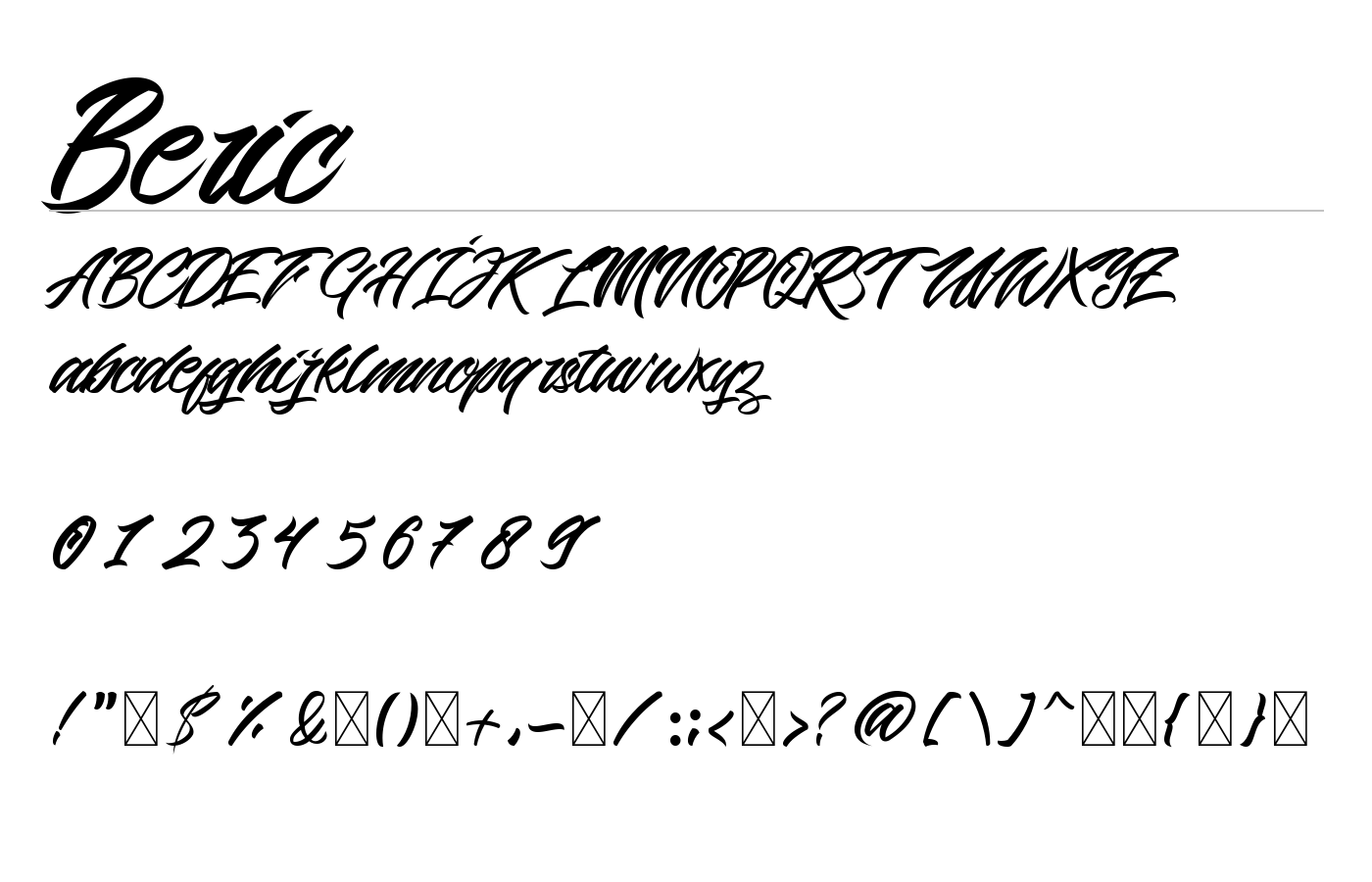
Beric is a bold and expressive script font featuring dynamic, brush-like strokes that give it a lively, handwritten feel. Its flowing uppercase and lowercase characters showcase elegant curves and strong slanting, making it perfect for designs that seek a personal, artistic touch. This font works well for logos, invitations, and branding where a vibrant, creative, and stylish impression is desired.
Beric Font